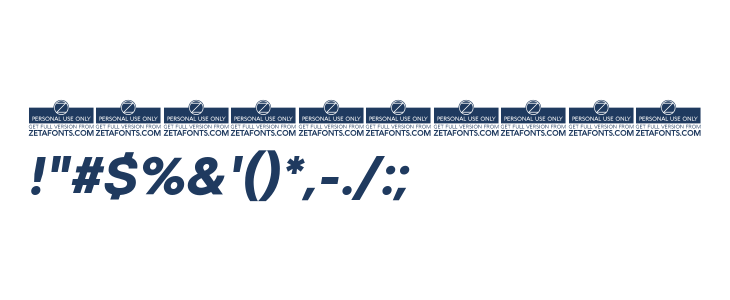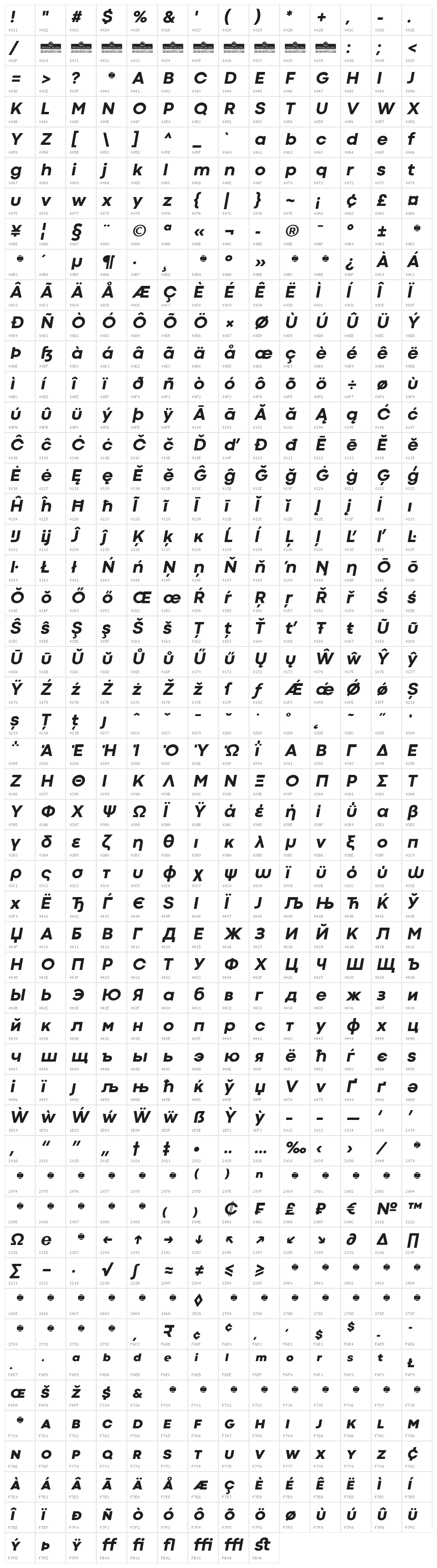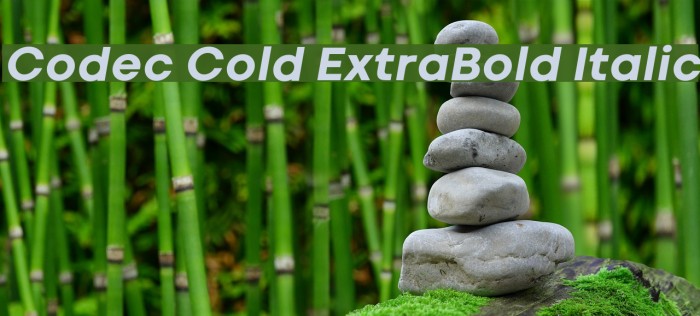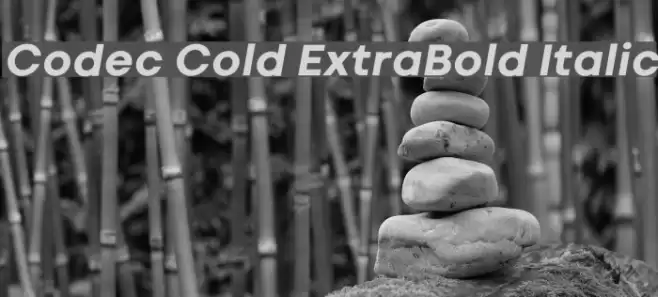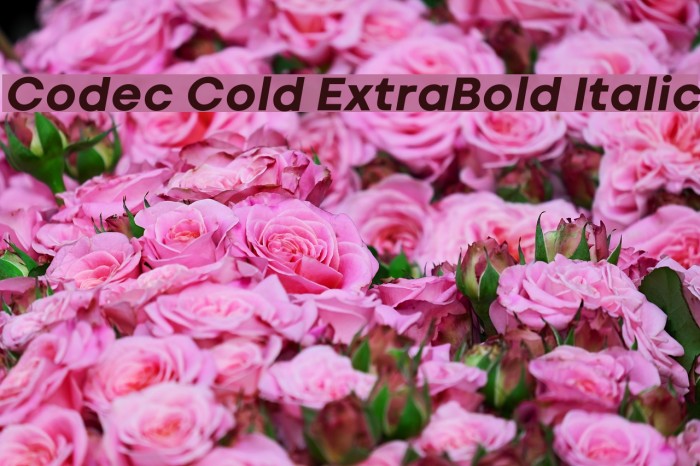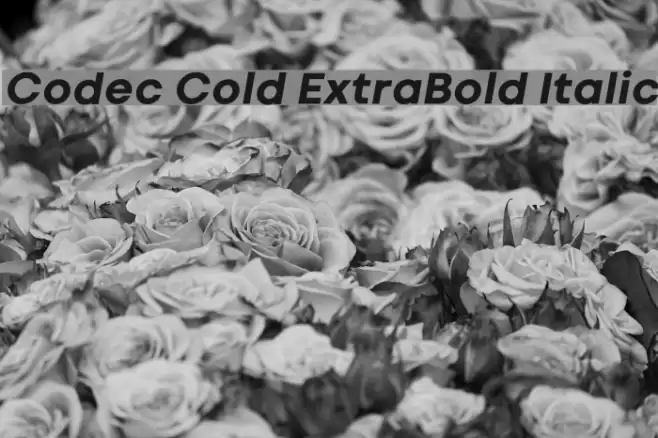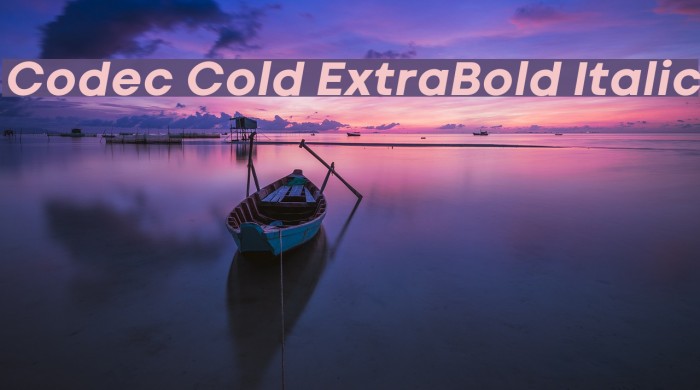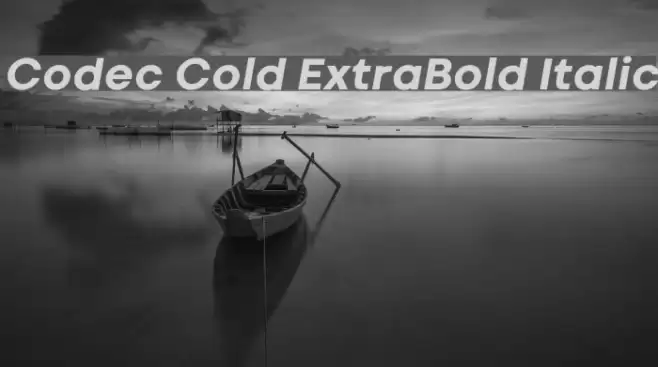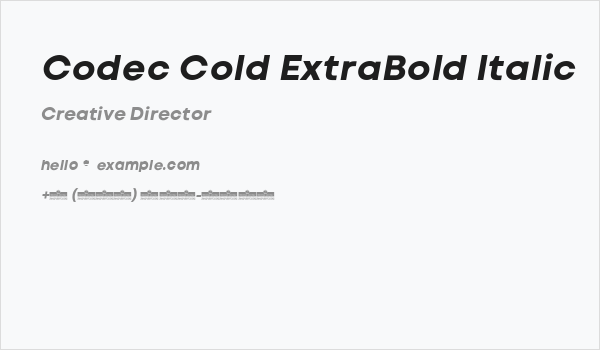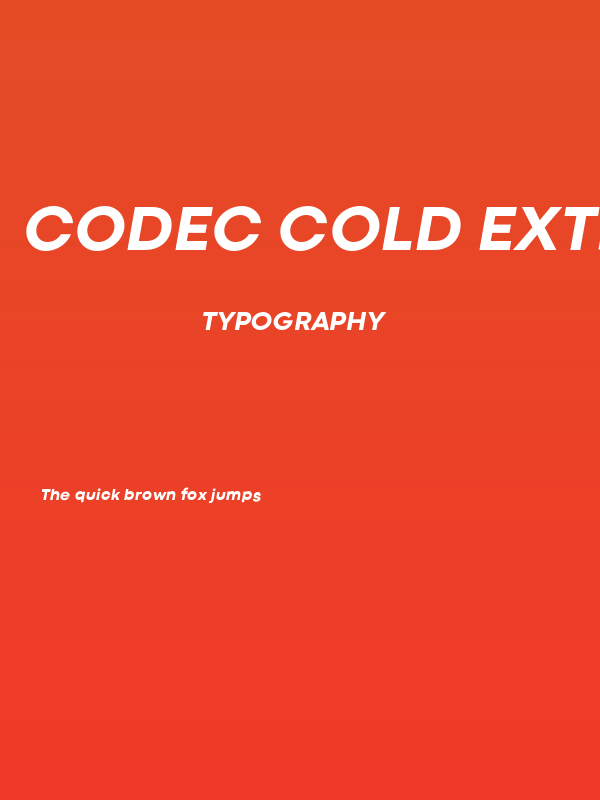
Codec Cold ExtraBold Italic Font
Codec Cold ExtraBold Italic Description
This font exhibits a bold and dynamic presence with its extra-bold weight and italic style. The characters are designed with a modern and sleek aesthetic, featuring smooth curves and clean lines. The uppercase and lowercase letters maintain a consistent slant, enhancing the italic effect. The numerals and special characters are crafted to match the overall boldness and style, making them stand out effectively. This typeface is well-suited for projects that require a strong visual impact, combining both elegance and assertiveness.
| Proposed Projects | Ideal for branding, advertising, headlines, and editorial design where a strong and modern appearance is desired. |